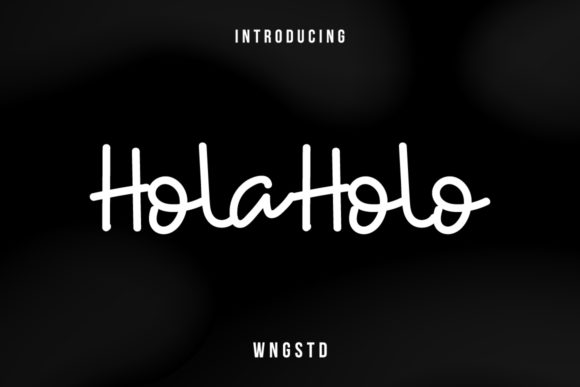
Holaholo Font: A Vibrant Dance of Characters for Your Signature Style
Step into the whimsical world of Holaholo Font, a captivating script font crafted with love by WNGSTD. Holaholo's playful and dynamic characters dance across the page, adding a touch of charm and individuality to your every creation.
With its free-flowing lines and expressive strokes, Holaholo empowers you to express your unique personality and style. Whether you're crafting heartfelt messages, eye-catching designs, or simply adding a touch of magic to your everyday writing, Holaholo becomes an extension of your imagination.
Immerse yourself in the boundless possibilities of this font. Let your creativity soar as you explore its diverse applications. From elegant wedding invitations to enchanting social media posts, Holaholo transforms your words into captivating works of art.
Its natural and unique style makes Holaholo incredibly versatile, seamlessly adapting to a wide range of design aesthetics. Elevate your branding with its sophisticated charm or bring a touch of whimsy to your personal projects. Holaholo's versatility knows no bounds, inviting you to explore the full spectrum of your creativity.
Experience the joy of writing with Holaholo Font. Its effortless flow and captivating characters will inspire you to create with passion and purpose. Embrace the beauty of self-expression and let Holaholo's vibrant dance of characters guide you to new heights of creativity.